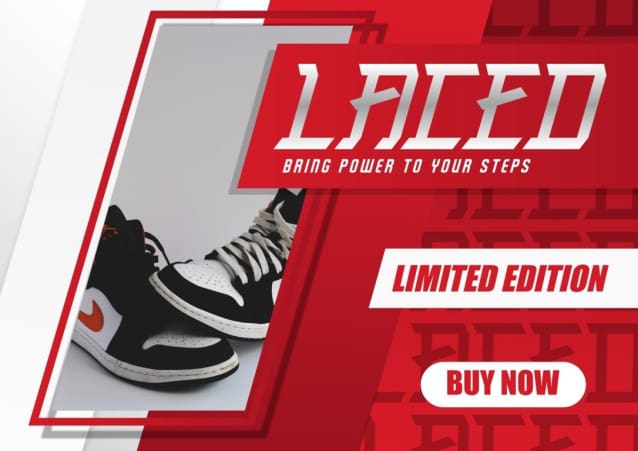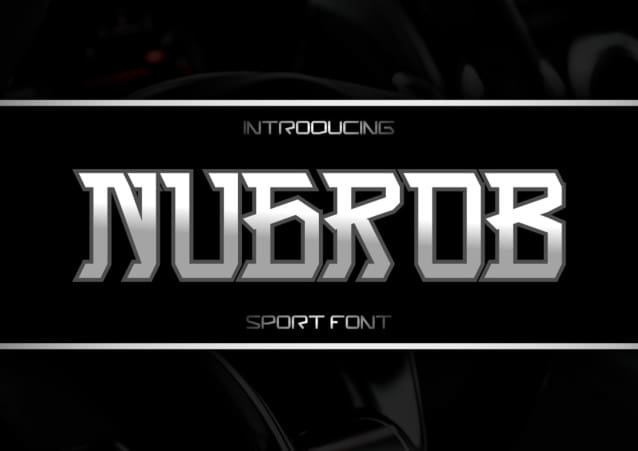
Nugrob Display Font
Nugrob Display Font, a stylish sans-serif font with a modern touch. Harness the power of this font in any design project associated with speed, power, or sports, and witness the awe-inspiring final outcomes it brings. Let Nurgob transform your designs with its cool and impactful vibe, leaving a lasting impression on your audience.